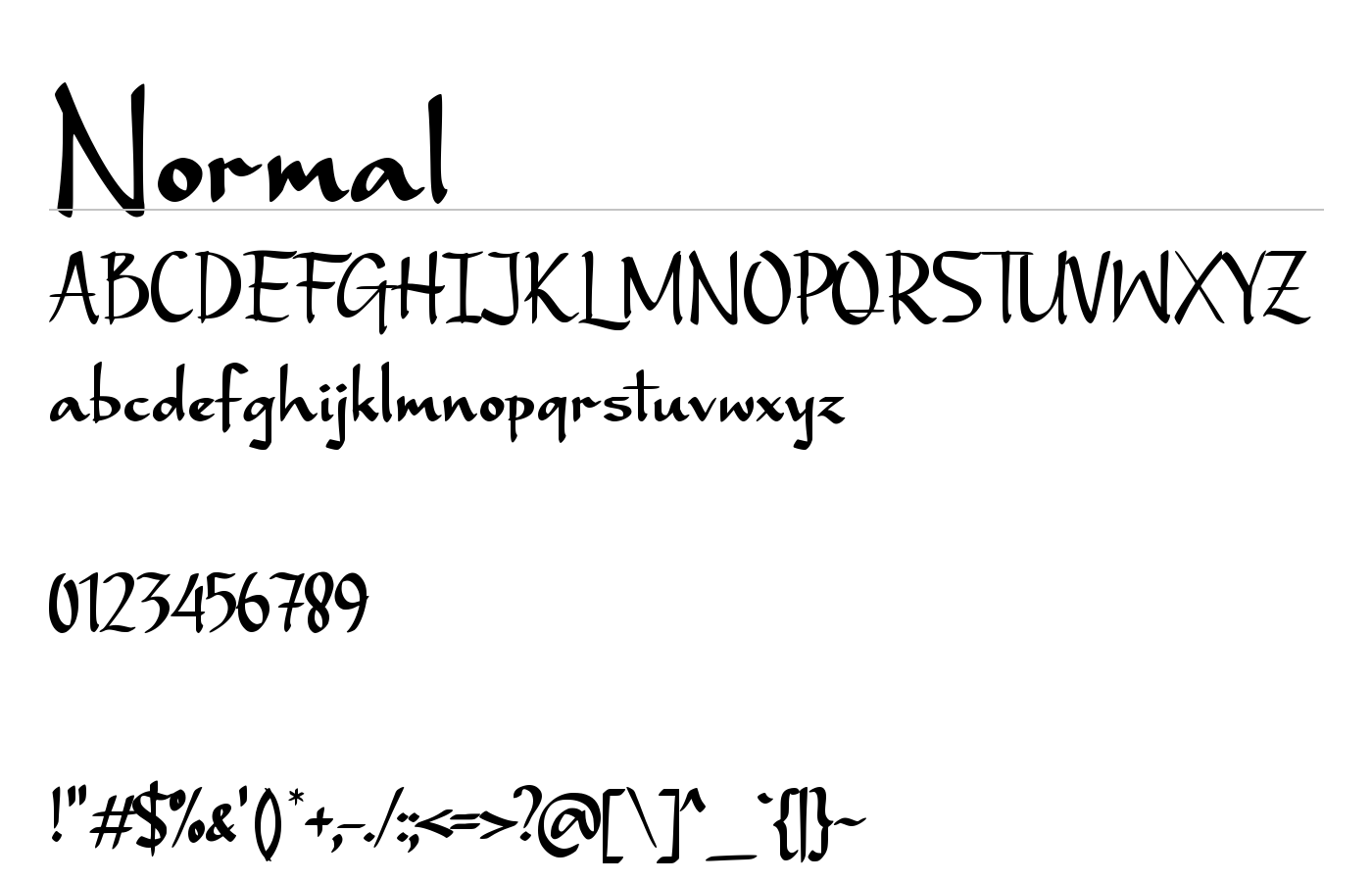
Gaze Nozarashi is a unique, hand-drawn serif font with an artistic and slightly whimsical flair. It features a moderate weight with sharp, irregular strokes that give it a dynamic, calligraphic feel, perfect for creative projects that want to stand out with a personal touch. Ideal for logos, posters, and headlines, this font brings an expressive, slightly vintage mood that captures attention and adds character to any design.
Gaze Nozarashi Font
About Gaze Nozarashi Font